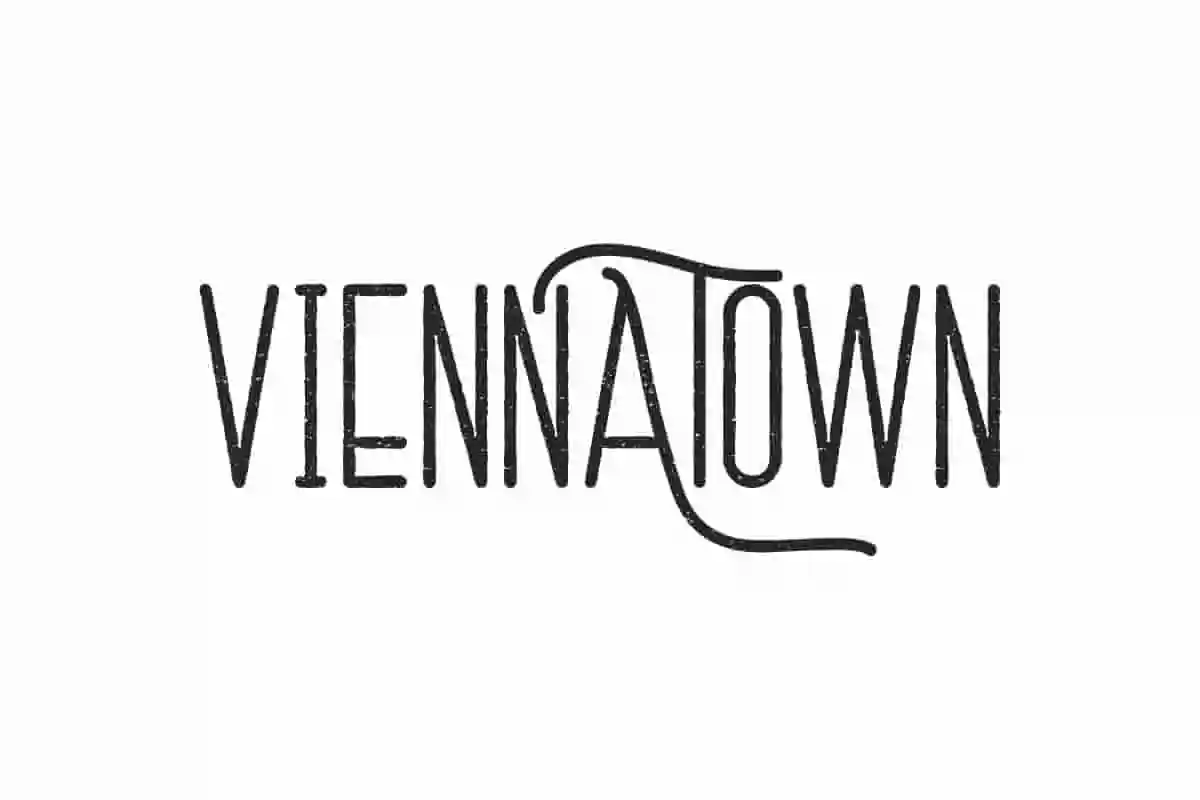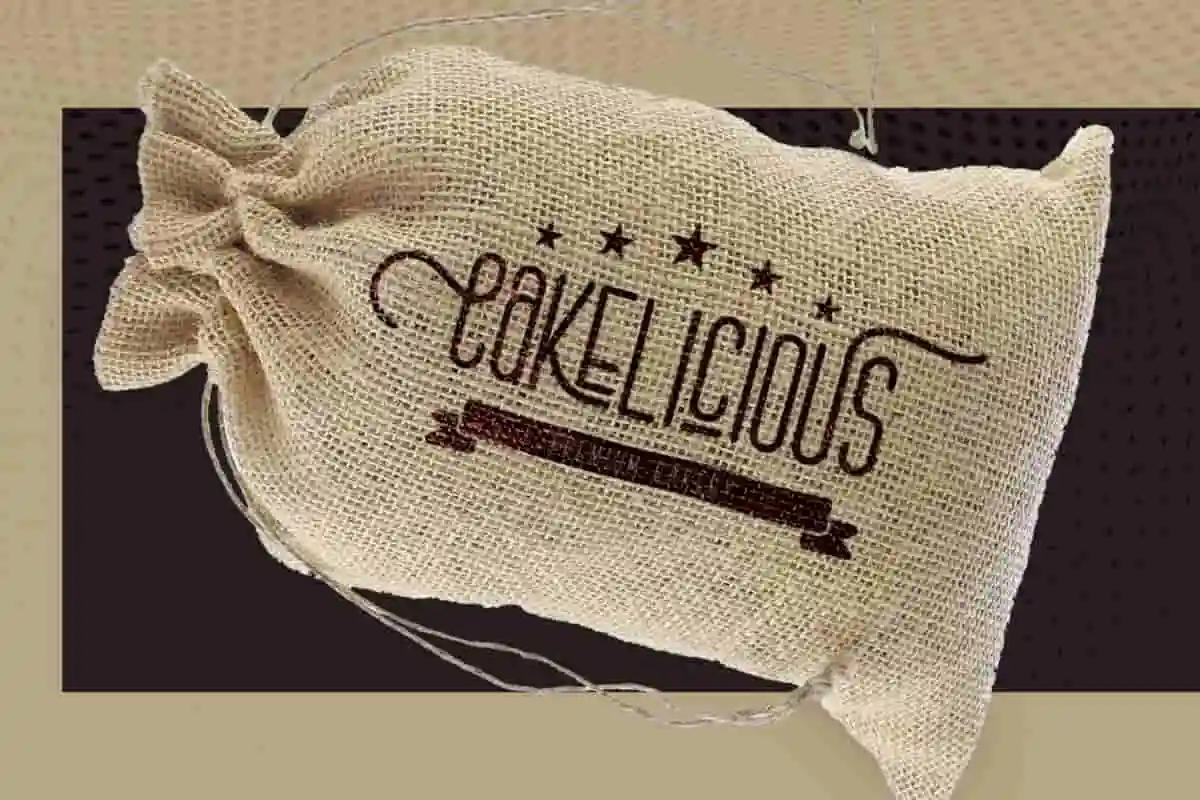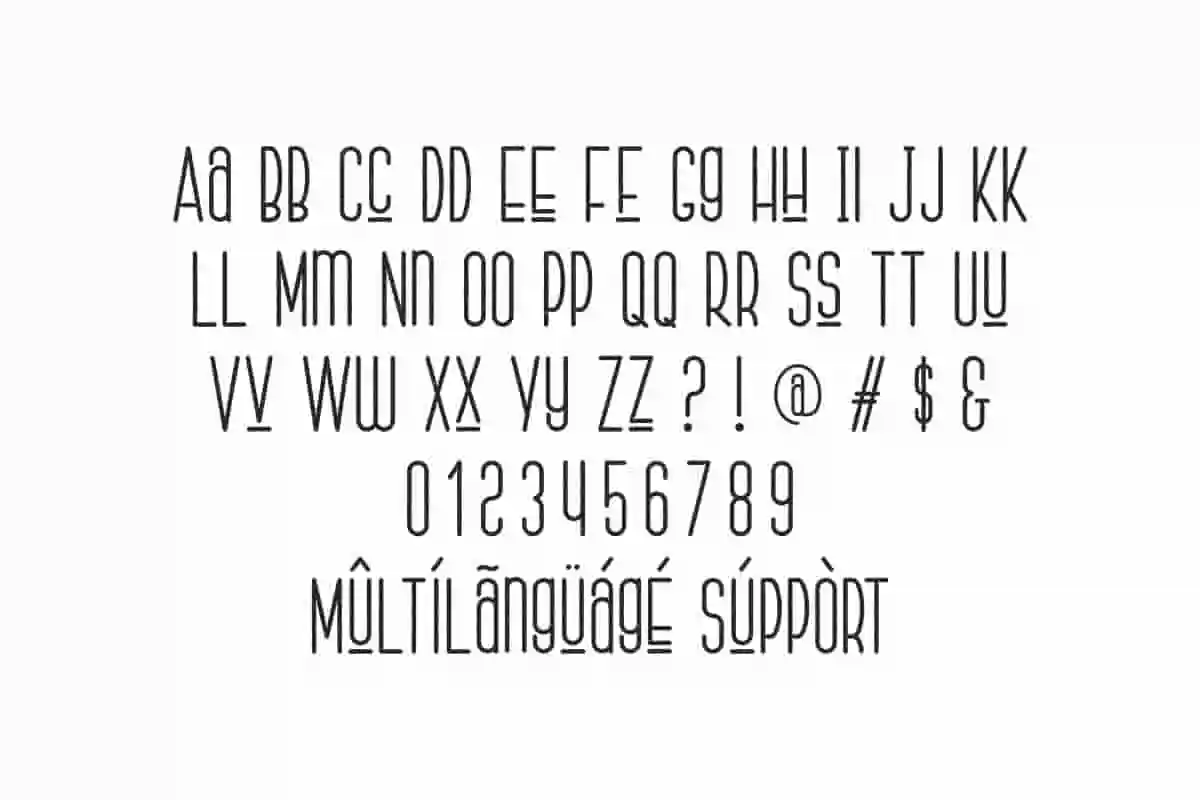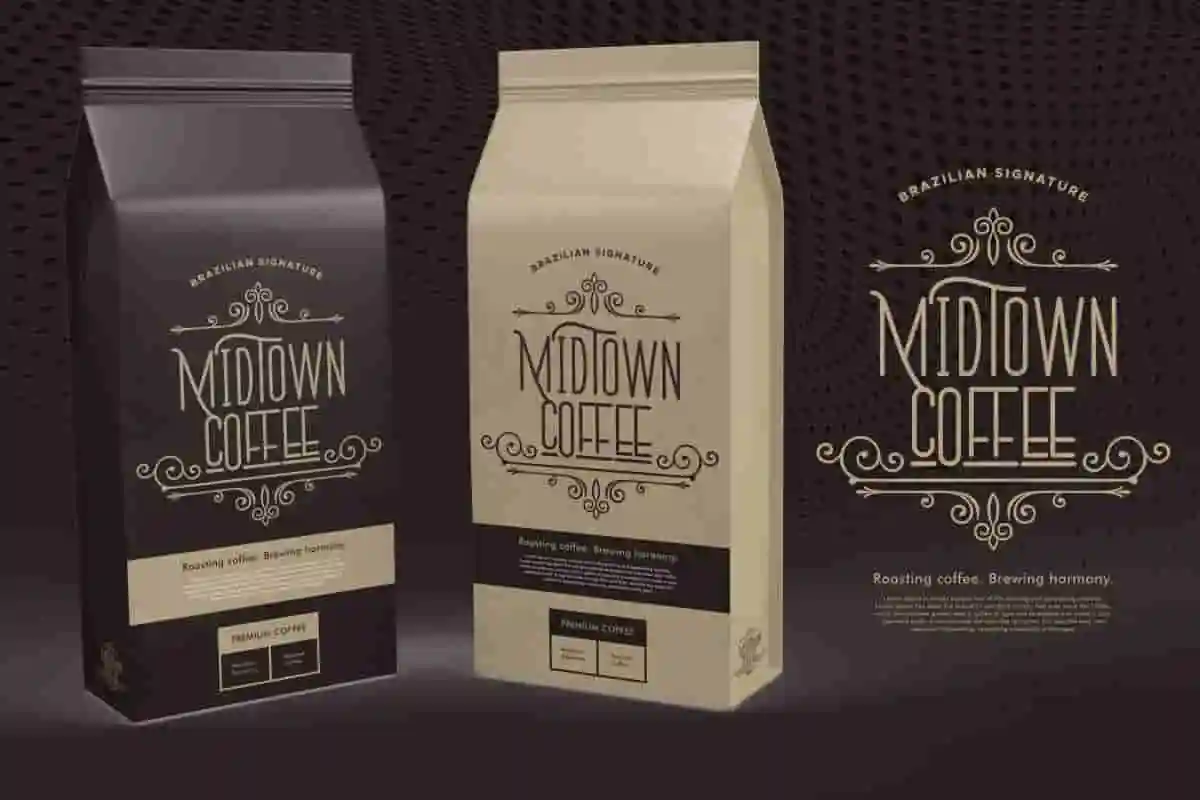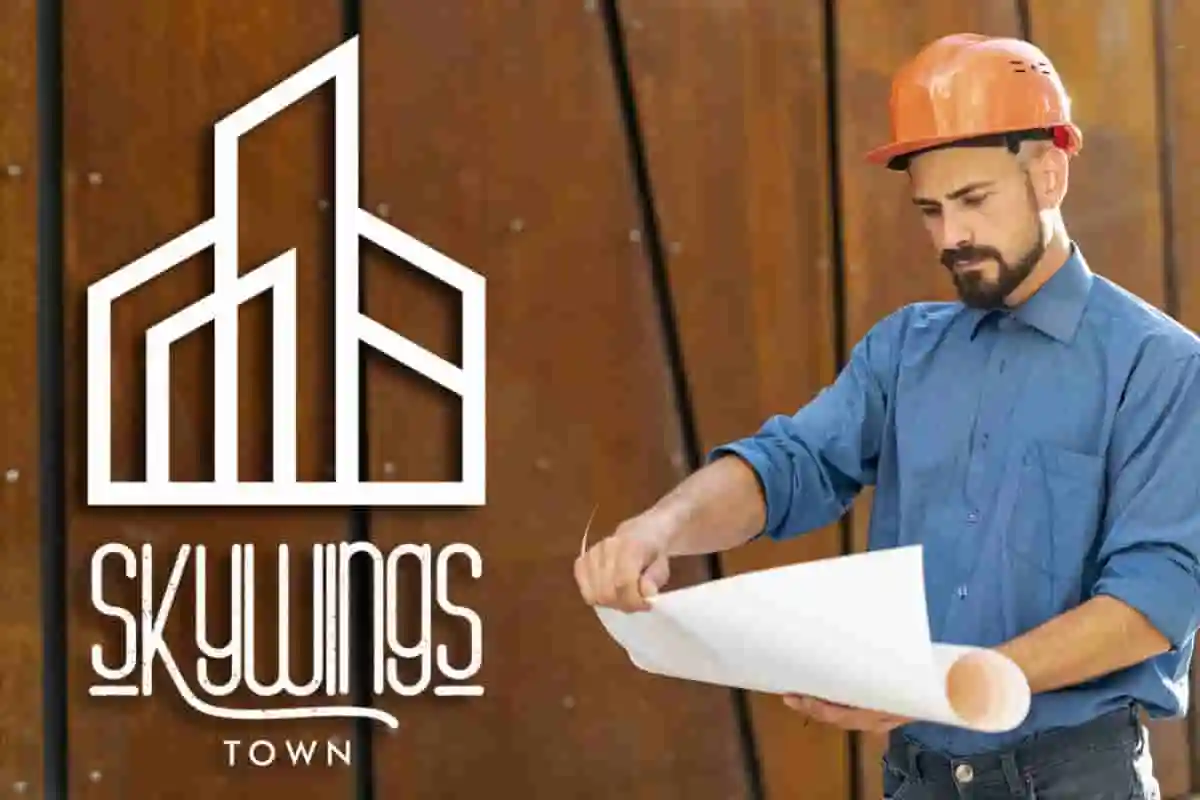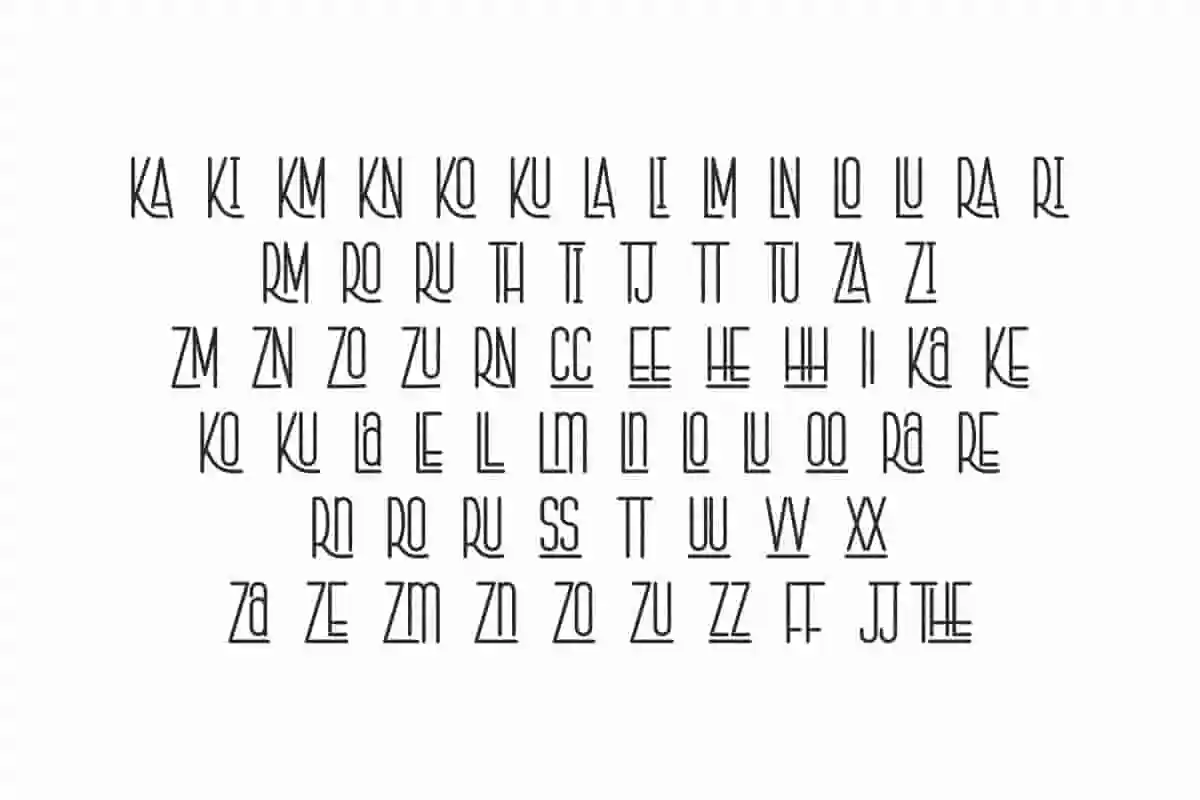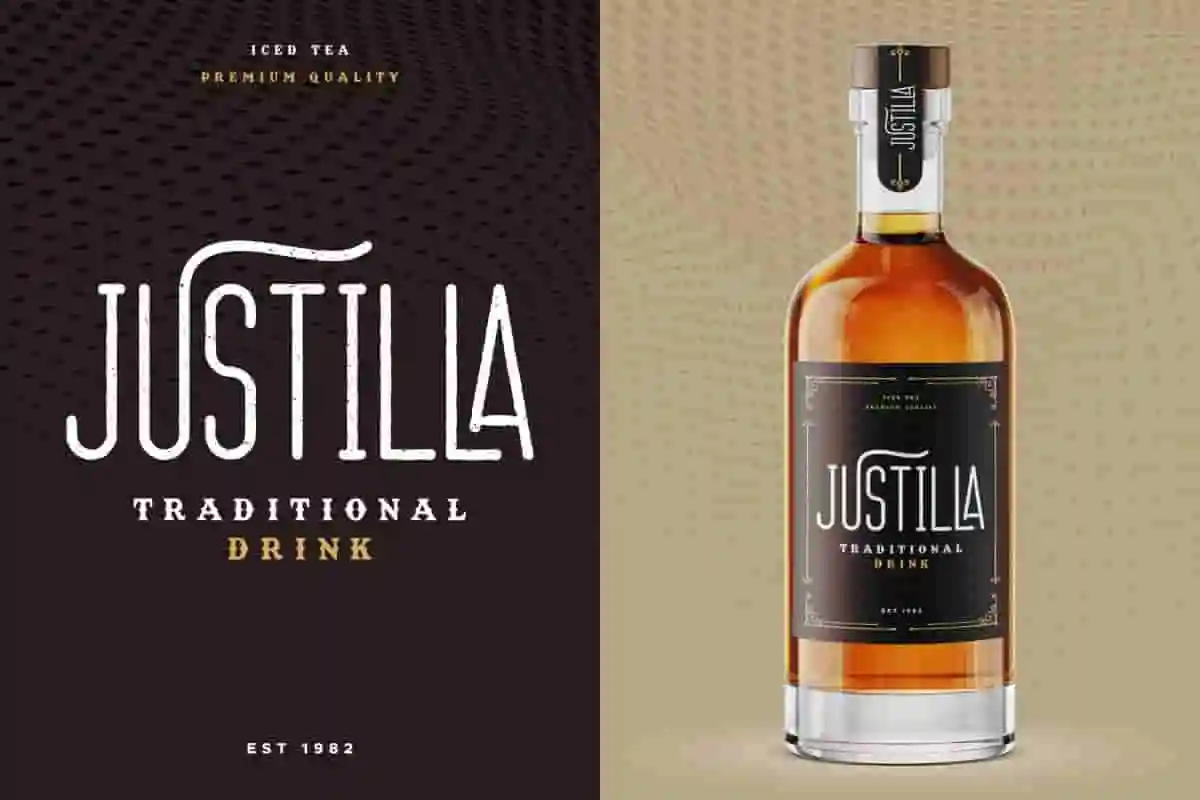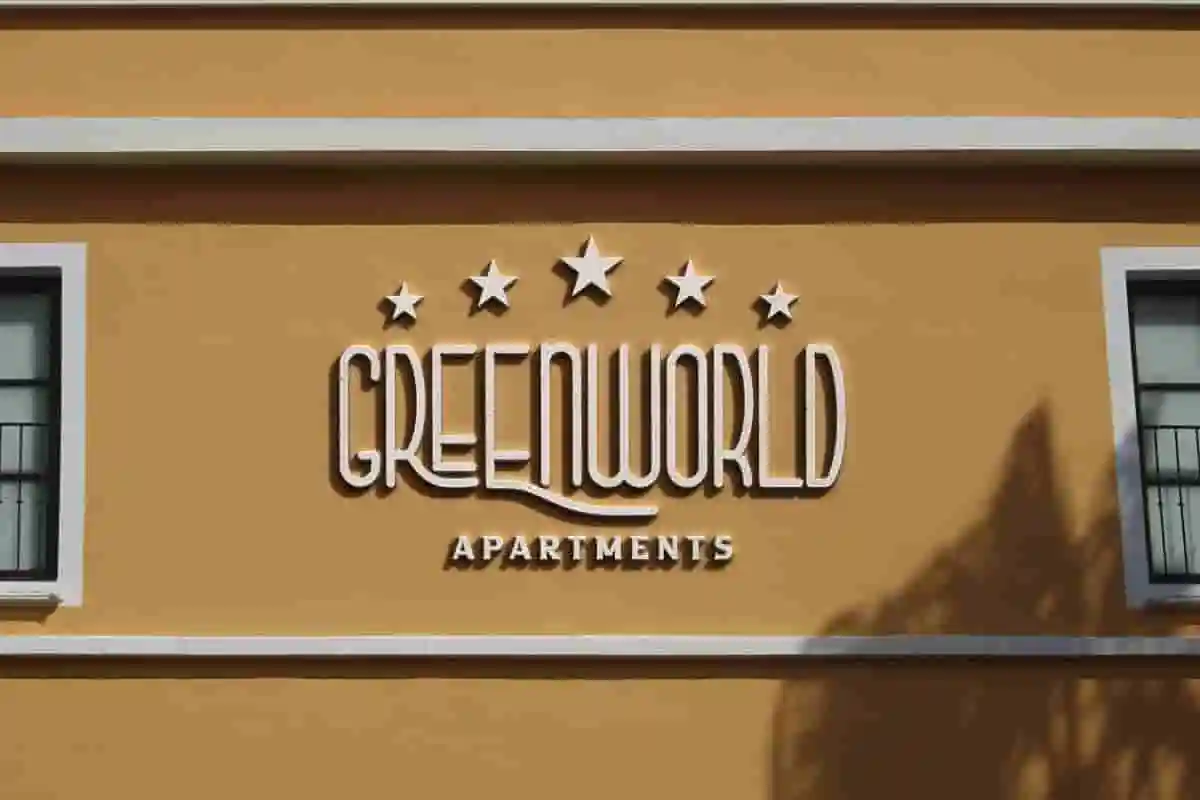
Vienna Town Font is a vintage classic display font by NihStudio, made in 2021. Vienna Town Font </strong>will great for cafe, restaurant, music, western, automotive etc.
Looking for a high-quality vintage display font to elevate your design? Meet Vienna Town Font, a handcrafted typeface designed by NihStudio, perfect for adding a retro and classic touch to any creative project.
Vienna Town is a vintage-style font family that brings elegance and personality to your work. It includes:
Designed and handcrafted in our studio in Indonesia, this classic font works beautifully for digital and print media.
Perfect kerning and spacing for professional results
High-quality vintage font with unique character
Restaurant and cafe branding
Vintage automotive design
Music and artist promotions
Property and real estate marketing
Logo, flyer, business card, and brochure designs